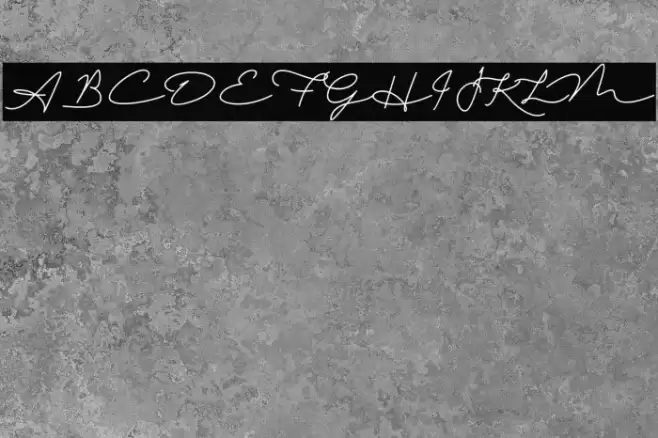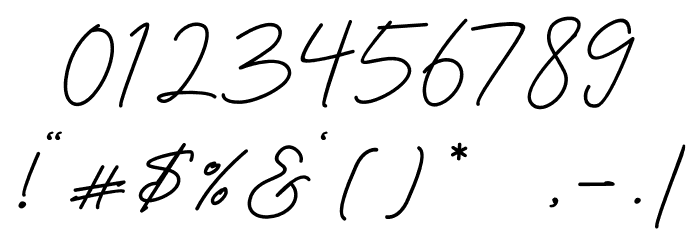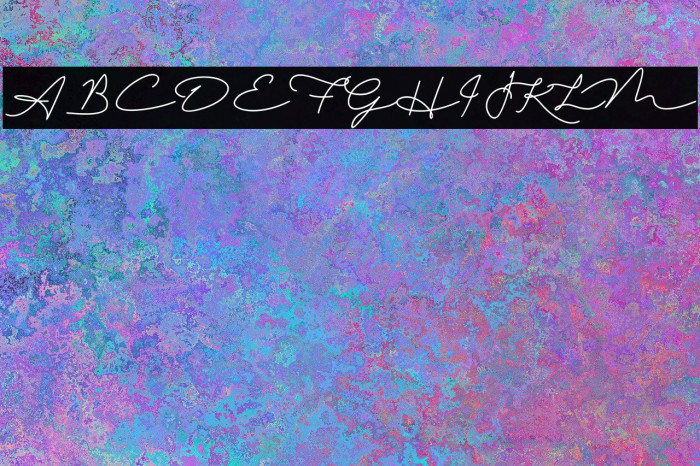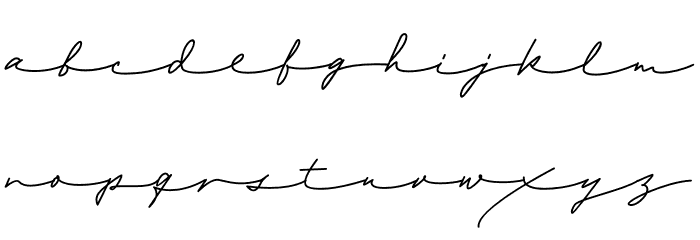
Raulina Font
Raulina Description
This elegant script font features a flowing, cursive style that mimics natural handwriting. The letters are connected, creating a seamless and fluid appearance. The uppercase letters are slightly more elaborate, with graceful loops and curves, while the lowercase letters maintain a consistent, smooth line. The numerals and special characters are designed to complement the alphabet, maintaining the same fluidity and elegance. This font exudes a sense of sophistication and personal touch, making it ideal for projects that require a handwritten aesthetic.
A flowing, cursive script font with elegant, connected letters from Uncategorized fonts.
- Proposed Projects: Ideal for wedding invitations, personal branding, greeting cards, and elegant stationery.
- Overall Style: Elegant, Handwritten
- Use Case: Logos, Invitations, Personal branding